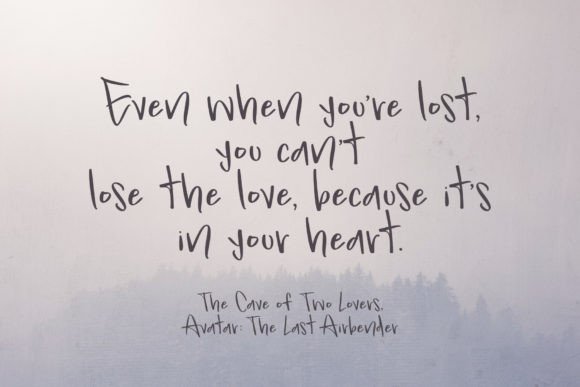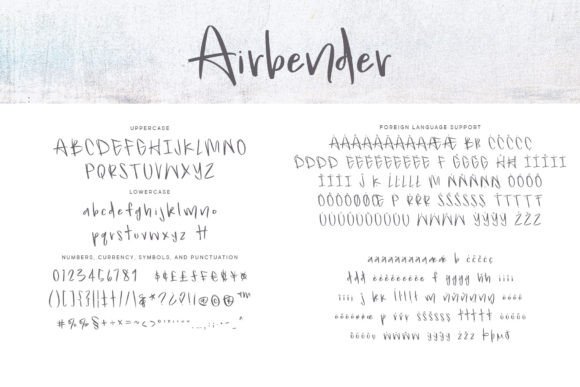
The Breath of Creativity: Discover the Airbender Font
Have you ever been stuck in a creative rut, searching for that perfect font to breathe new life into your project? I know I have. There’s nothing quite like the feeling of discovering a font that speaks to your soul, and that’s exactly what happened when I stumbled upon the Airbender Font.
This beautiful, handwritten font is designed to evoke an openhearted feeling, with smooth sweeping strokes that add a touch of elegance to any design. Whether you’re creating a bold headline, a whimsical byline, or a stunning graphic, the Airbender Font is the perfect tool to give your project a charismatic flair. As a designer, you know how valuable it is to have a versatile font in your toolkit, and the Airbender Font delivers.
Key Features of Airbender Font
- Unique Characteristics: The Airbender Font features a unique blend of Eastern and Western influences, resulting in a distinctive and eye-catching design aesthetic.
- Opentype Features: The font includes advanced OpenType features, such as ligatures, swashes, and contextual alternates, which can be accessed through font software or design applications.
Designer Review: Airbender Font
Overall, I was intrigued by the Airbender Font, and here’s my honest take on its strengths and weaknesses.
- Unique Aesthetic: The font has a distinct, eastern-inspired flair that sets it apart from more common sans-serif fonts.
- Readability: Despite its ornate design, the font is surprisingly legible, making it suitable for a wide range of applications.
- Expressiveness: The font’s expressive nature makes it perfect for titles, headings, and other areas where you want to add some flair.
- Compatibility Issues: I encountered some compatibility problems with certain software and platforms, which may limit its usability.
- Lack of Consistency: The font’s design, while visually appealing, can be inconsistent at times, which may make it harder to work with.
- Limited Character Set: The font’s character set is limited, which may not be ideal for applications that require a wide range of special characters.
Overall, the Airbender Font is a great choice for designers who want to add a unique touch to their projects. However, it may not be the best fit for projects that require a high level of consistency and compatibility.
The Airbender Font is ideal for creating mystical and adventurous designs. Some common use cases include:
- Creating fantasy book covers and posters.
- Designing promotional materials for sci-fi and fantasy events.
- Adding a touch of magic to your social media graphics and flyers.